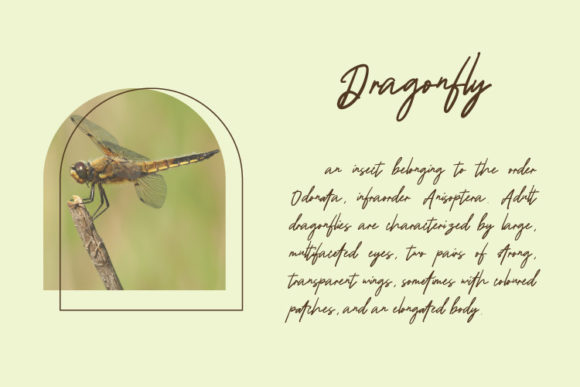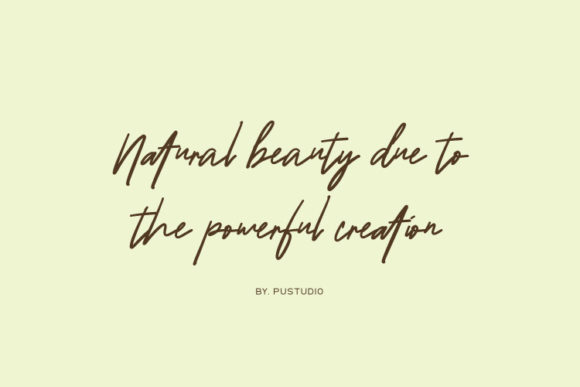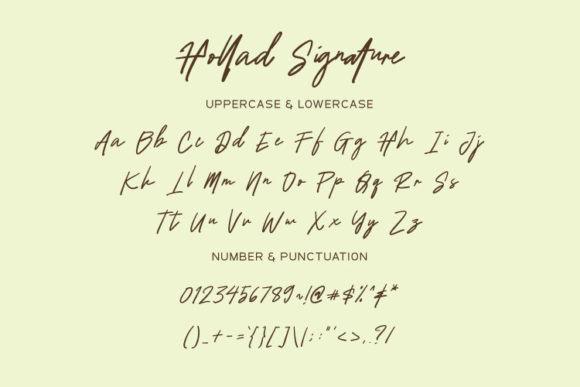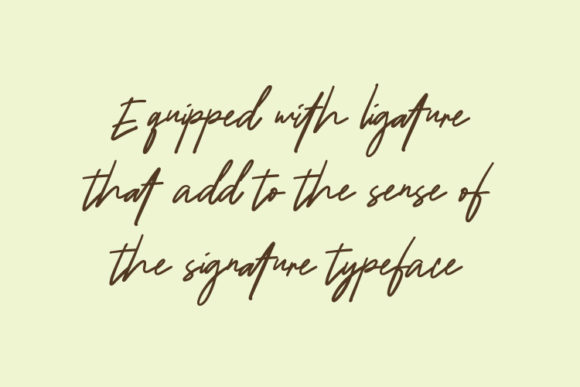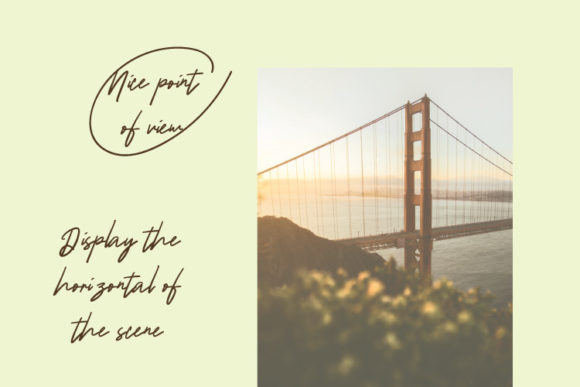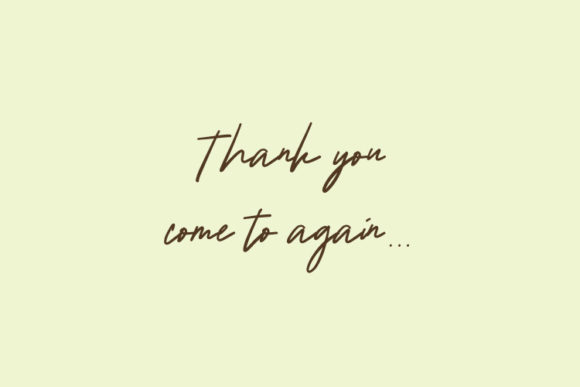
The Perfect Script for a Touch of Elegance
Have you ever found yourself stuck in front of a blank page, struggling to find the perfect font to match your design’s vision? You know the feeling – it’s like searching for a needle in a haystack, only to end up with a generic font that just doesn’t cut it. But what if I told you that there’s a font that can solve all your design woes and leave a lasting impression on your audience?
Enter the Holland Signature Font, a beautifully crafted script font that exudes elegance and sophistication. Designed specifically for those who crave a unique and refreshing look, this font is perfect for anyone looking to elevate their designs to the next level. Whether you’re a seasoned designer or just starting out, the Holland Signature Font is a valuable addition to your toolkit, offering a level of sophistication and class that’s hard to find in other fonts.
Holland Signature Font Key Features
- Font Family: Holland Signature Font is a unique, hand-drawn script font designed for creating elegant and sophisticated text effects.
- Character Count: The font includes a total of 210 characters, including uppercase and lowercase letters, numbers, and punctuation marks.
- Unique Characteristics: Features a flowing, cursive style with subtle flourishes and elegant connections between letters, ideal for creating signature-style text effects.
Holland Signature Font Review
Overall, I think the Holland Signature Font is a solid addition to any designer’s toolkit. ✨ The font’s elegant and refined look makes it perfect for high-end branding and luxury goods. It’s a great choice for creating a sophisticated and premium feel in your designs.
- ✨ Elegant and refined design
- ✨ Perfect for high-end branding and luxury goods
- ✨ Great for creating a sophisticated and premium feel
- ⚠️ Limited versatility – it’s best suited for specific niches
- ⚠️ May not be the best choice for informal or playful designs
- ⚠️ Some characters may not be as refined as others
In terms of overall impression, I think the Holland Signature Font is a great choice for designers who want to create a high-end look. However, it’s not a one-size-fits-all solution and may not be the best fit for every project. With that said, I think it’s definitely worth considering for the right client or project.
Holland Signature Font: A Practical Application Guide
Getting the Most Out of the Holland Signature Font
To get the most out of the Holland Signature Font, use it in combination with other design elements, such as colors and images. You can also experiment with different font sizes and styles to create a unique and eye-catching design.
The Holland Signature Font is commonly used in business and professional settings, such as:
- Presentations and proposals
- Marketing materials and flyers